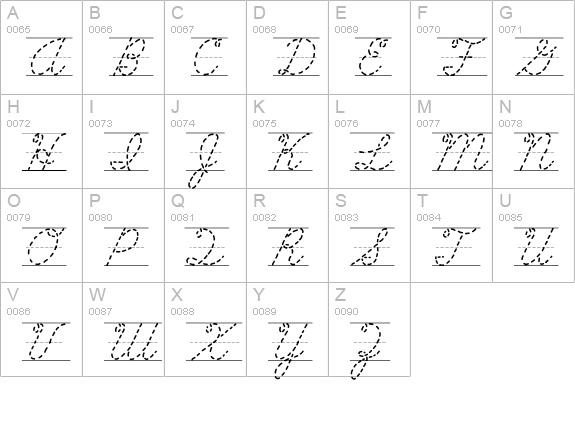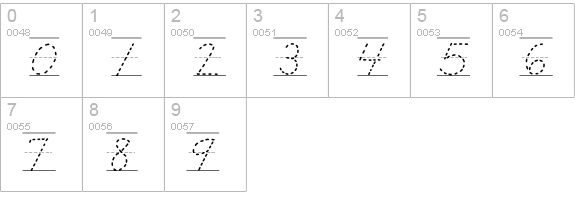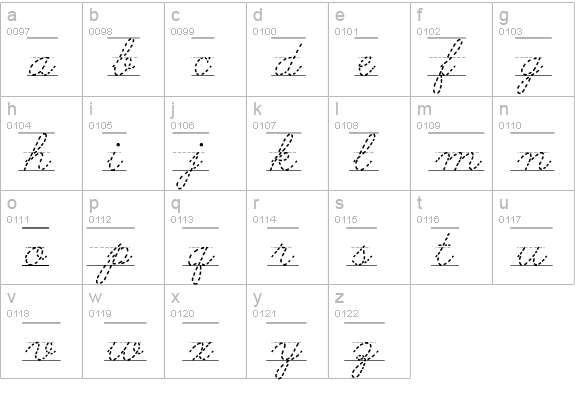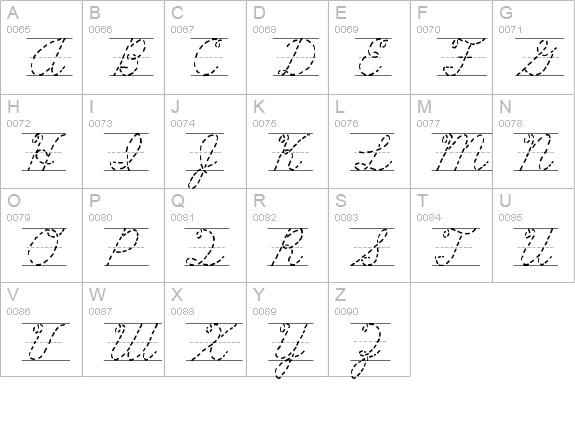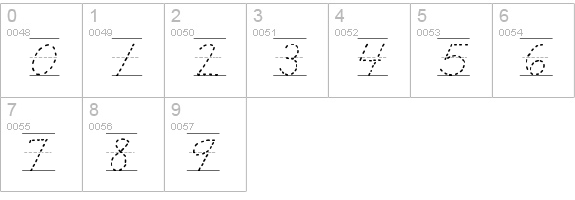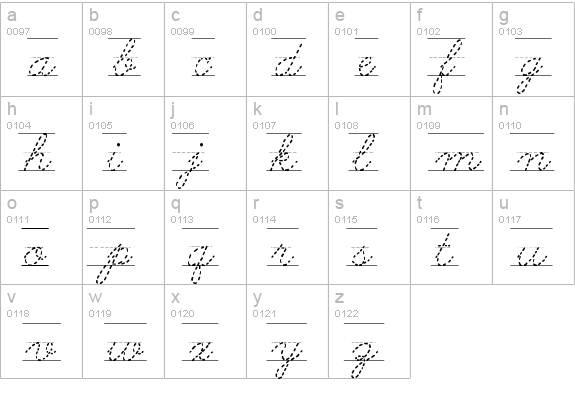
AbcCursiveDottedLined Font Details
The AbcCursiveDottedLined font is a delightful and elegant cursive font that features dotted lined accents, perfect for creating a charming and whimsical touch to your projects. This font exudes a sense of creativity and playfulness, making it ideal for children's materials, educational resources, invitations, and more. The AbcCursiveDottedLined font is not only visually appealing but also practical, as the dotted lines provide guidance for practicing handwriting skills. Whether you're working on a school project, designing a greeting card, or simply want to add a fun flair to your designs, this font is sure to impress. Best of all, the AbcCursiveDottedLined font is available for free download at FontsMarket.com, making it easily accessible for anyone looking to incorporate this charming typeface into their projects. Don't miss out on the opportunity to enhance your designs with this lovely and versatile font today!